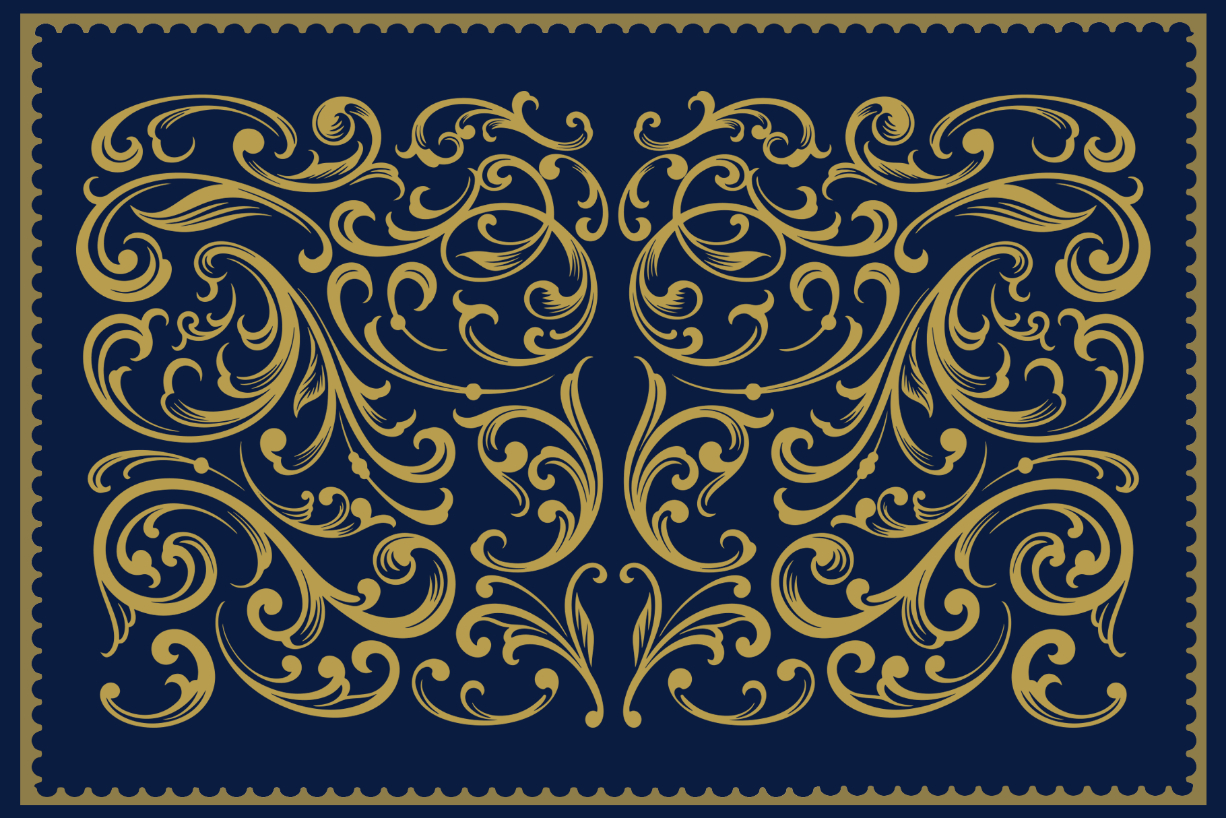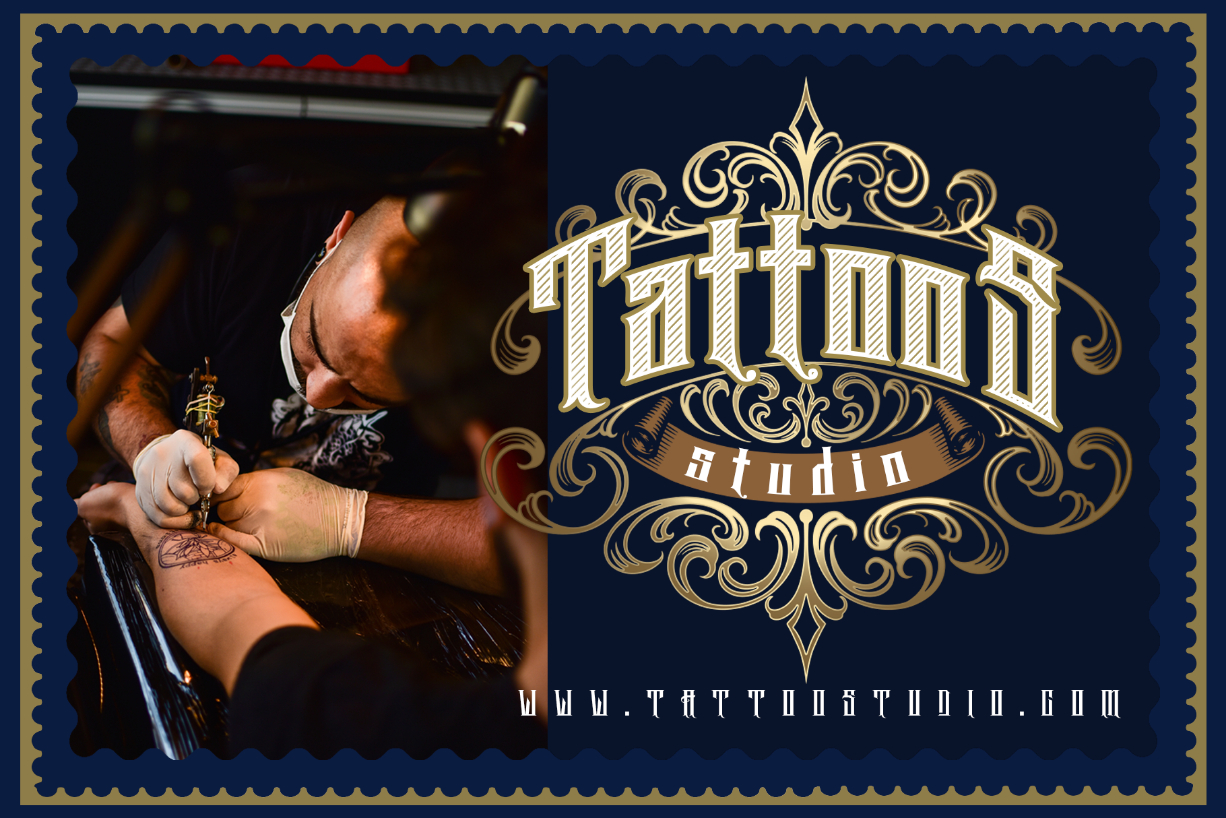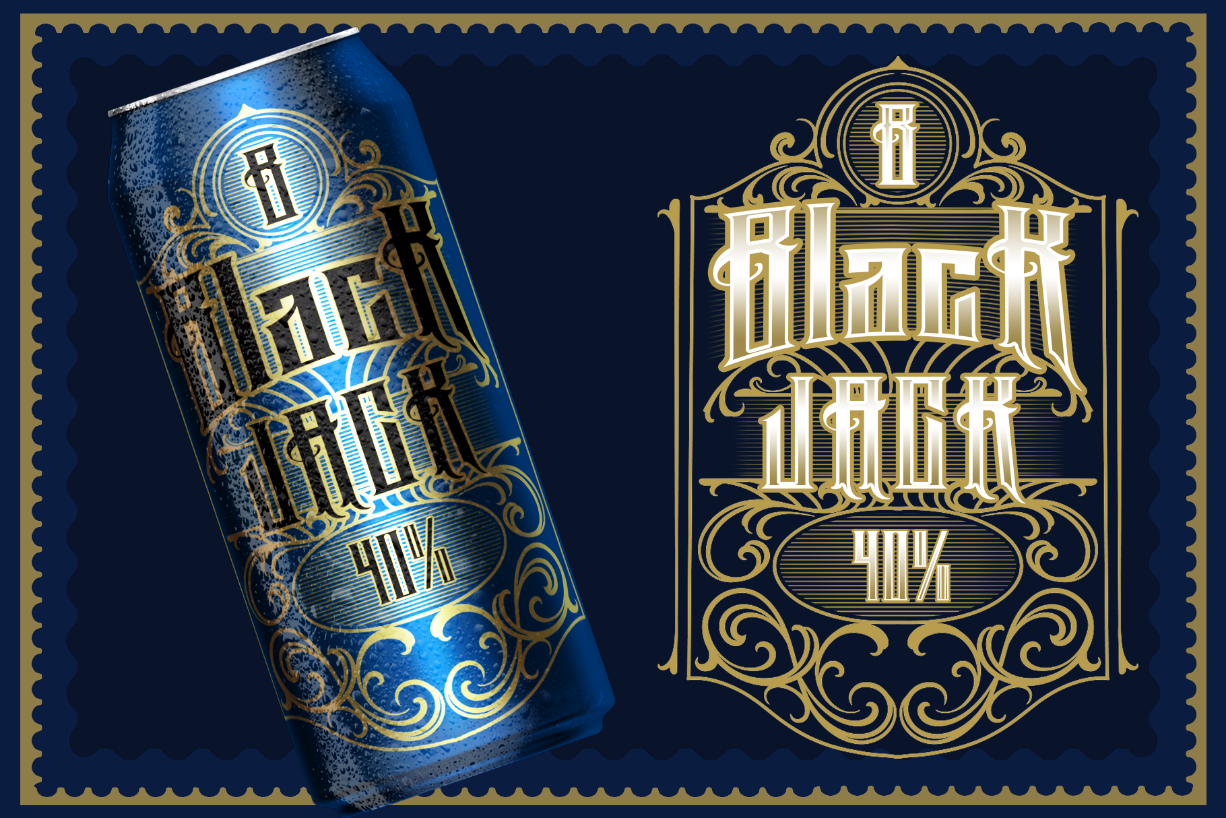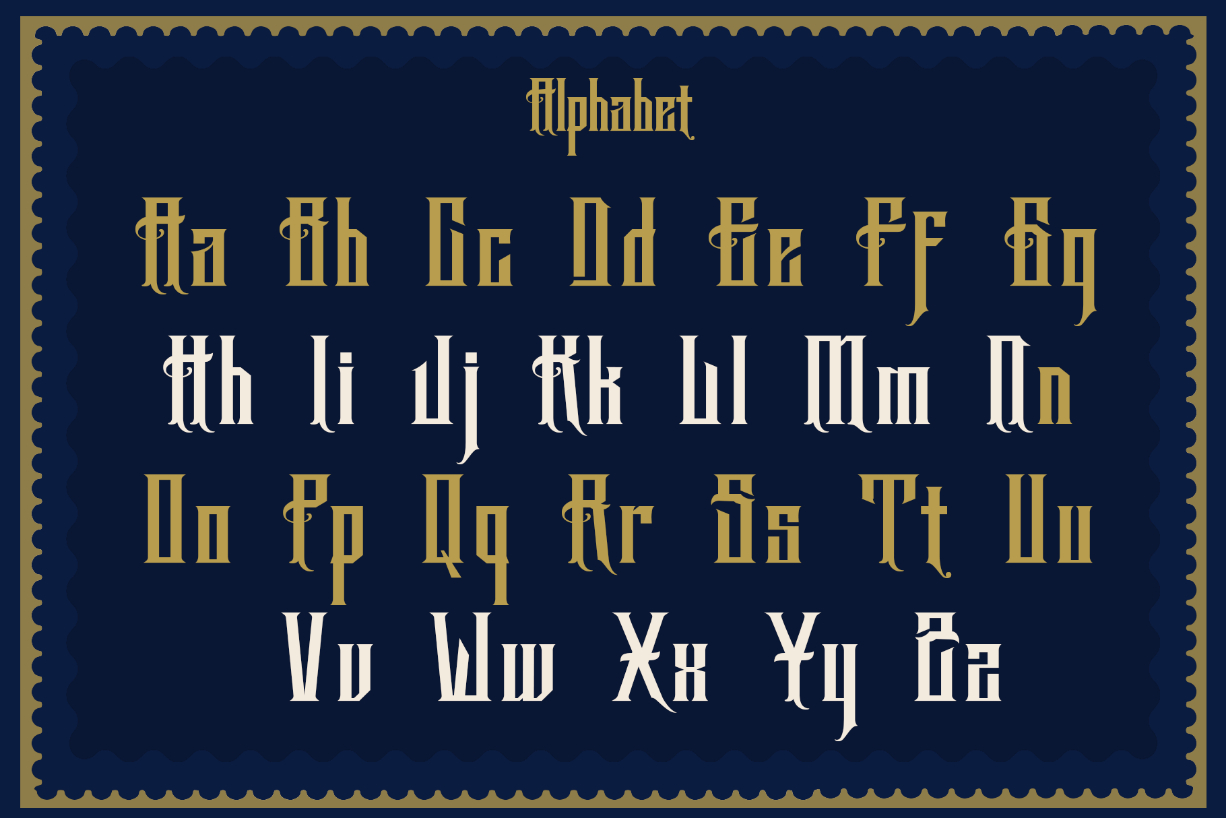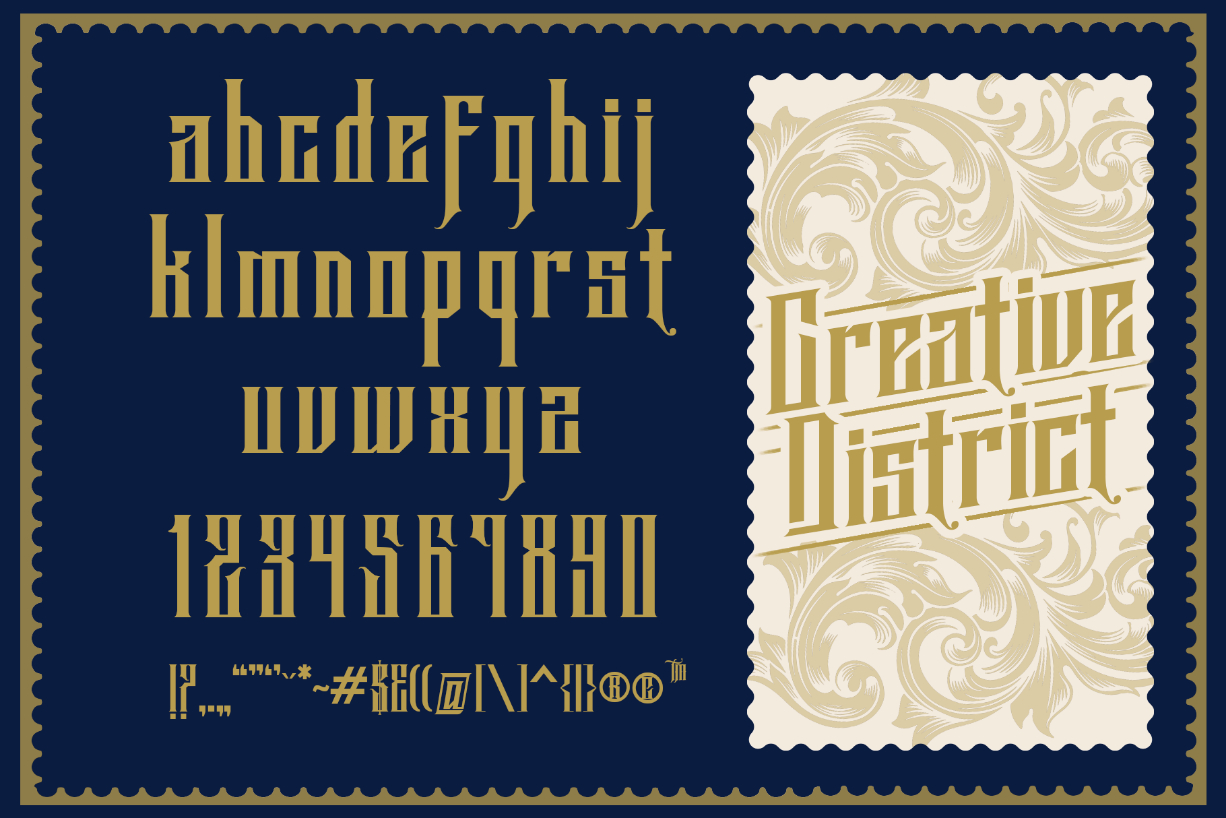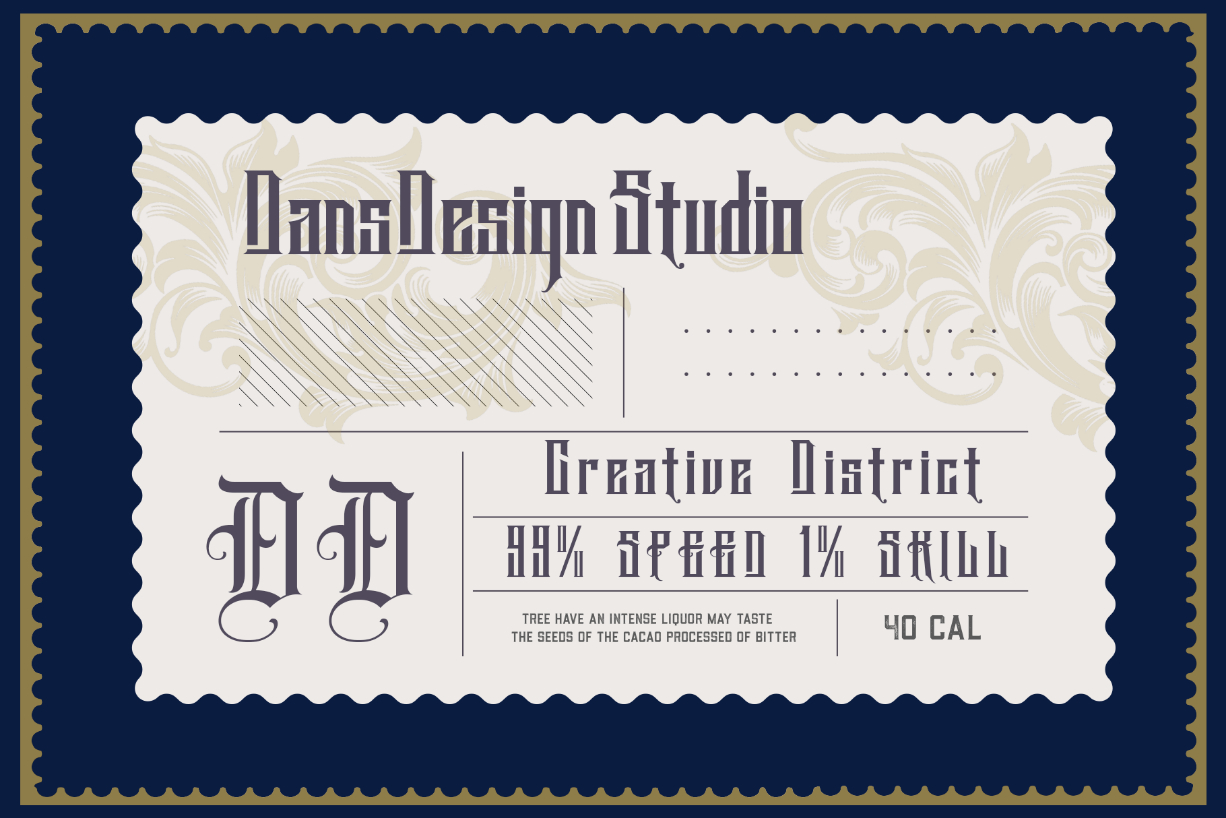
Great Valey Font
About Great Valey Font
GreatValey is a bold, distinct and elegant blackletter font. This font is neatly crafted and highly detailed. Whatever the topic, it will be a wonderful asset to your font library, as it has the potential to enhance any creation.